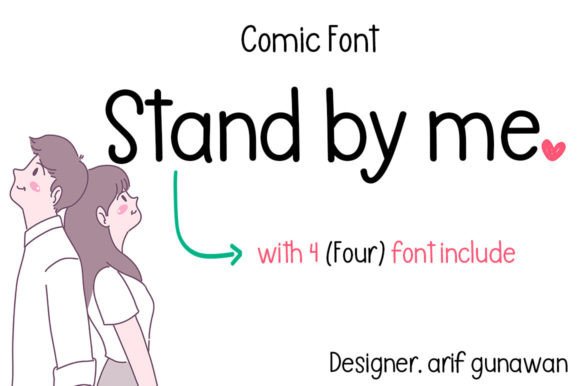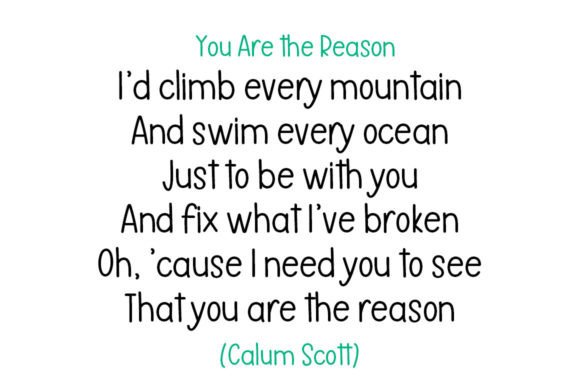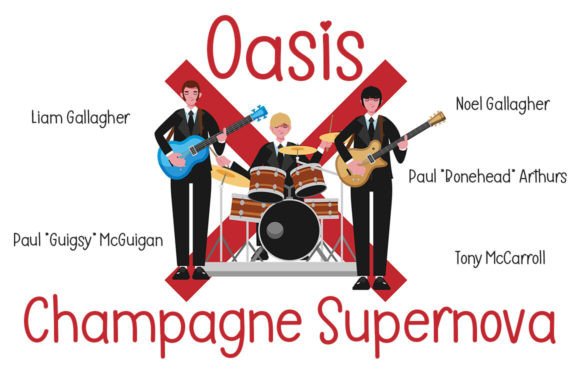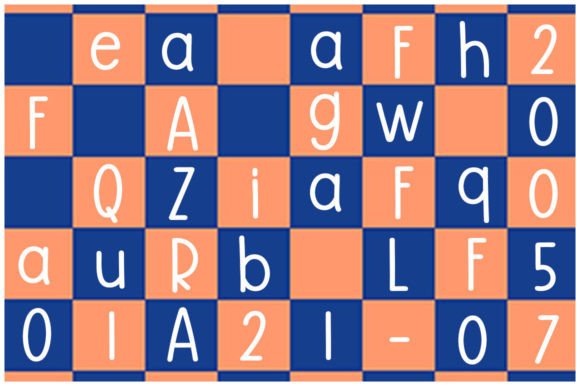
Stand by Me Font
About the Stand by Me Font
Explore the possibilities with Stand by Me Font, a font that offers both beauty and functionality. Stand By Me Display is a modern design, including Regular. This font is casual and beautiful with swash. Can be used for various purposes. such as logos, product packaging, wedding invitations, branding, headlines, signage, labels, signatures, book covers, posters, quotes, and more.
Stand by Me Font Usage Examples
Stand by Me Font Example